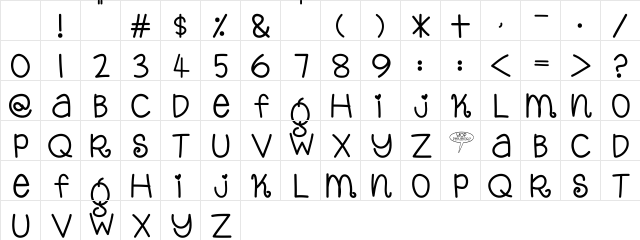
Complete Yop_Pekabor glyph index. Displaying only characters natively supported by Yop_Pekabor font.
Yop_Pekabor is a composed and adaptable typeface that performs quietly and consistently across a wide range of design contexts.